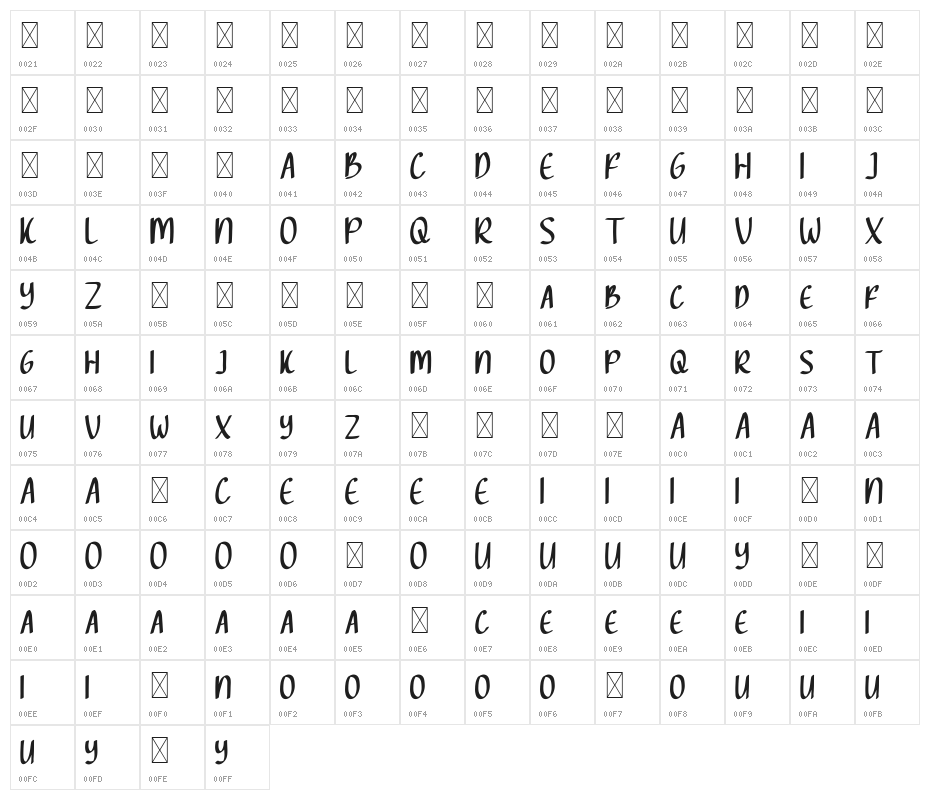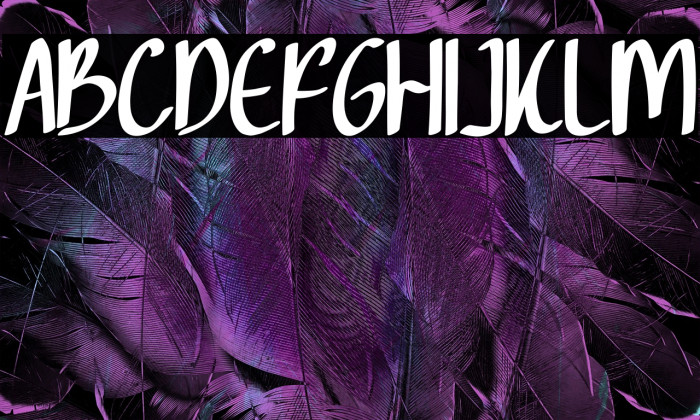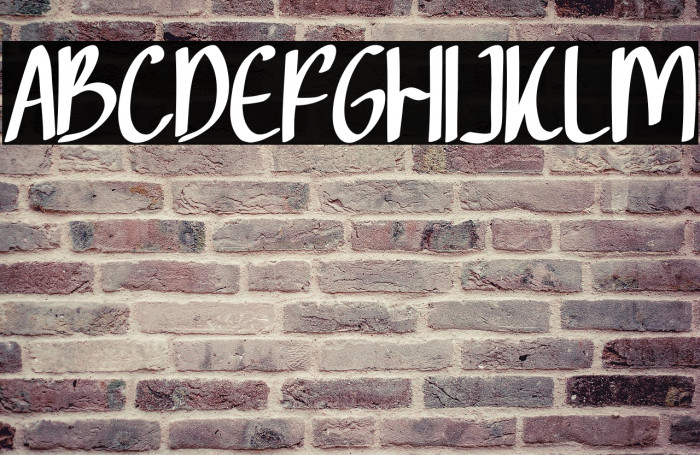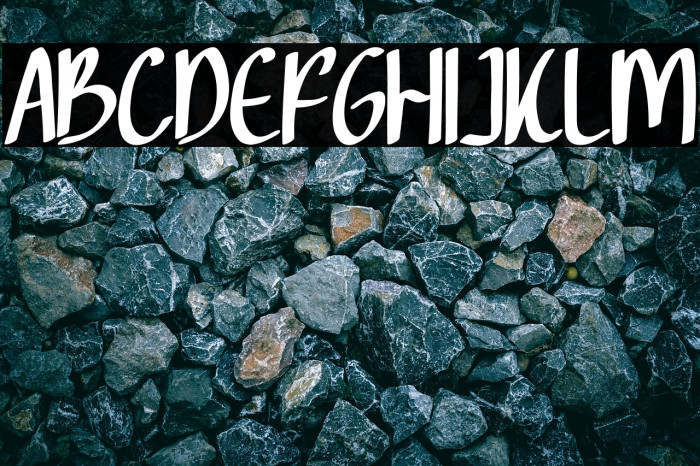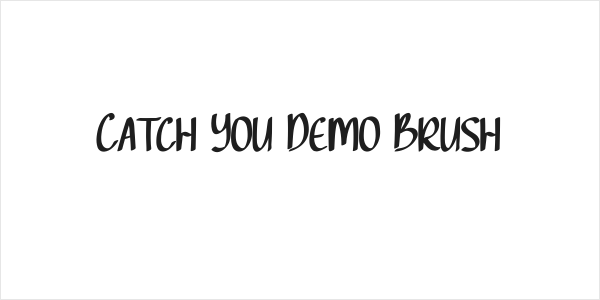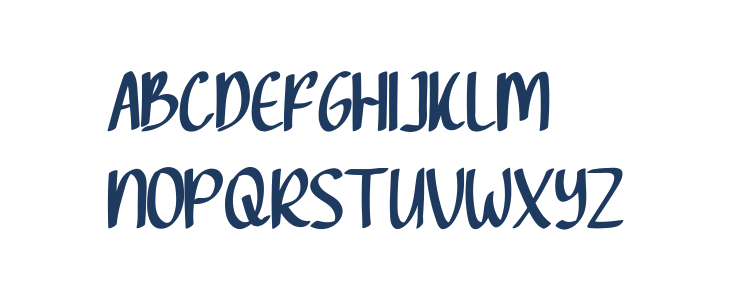
Catch You Demo Brush Font
Catch You Demo Brush Description
This font features a dynamic and expressive brush style, characterized by bold, sweeping strokes that convey a sense of energy and movement. The uppercase letters are crafted with a consistent flow, maintaining a balance between legibility and artistic flair. The lowercase letters complement the uppercase with a slightly more compact form, yet they retain the same lively brushstroke quality. The font's overall appearance is both modern and playful, making it suitable for creative projects that require a touch of personality. The absence of special characters and numerals suggests a focus on alphabetic expression.
| Proposed Projects | Ideal for branding, posters, invitations, and social media graphics where a lively and artistic touch is desired. |